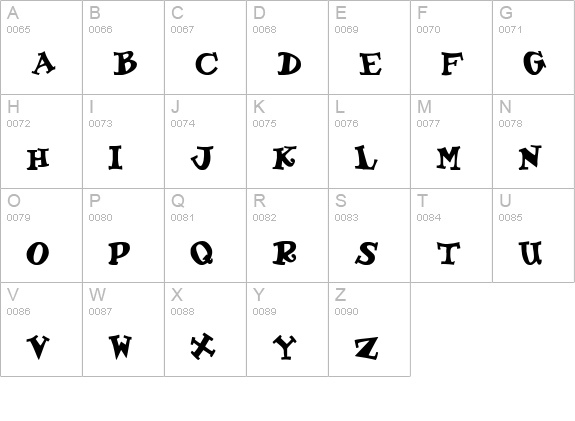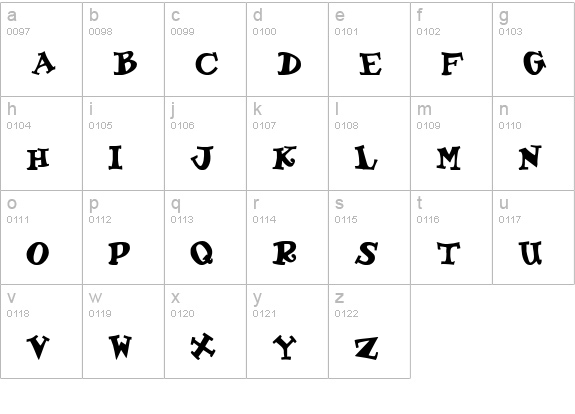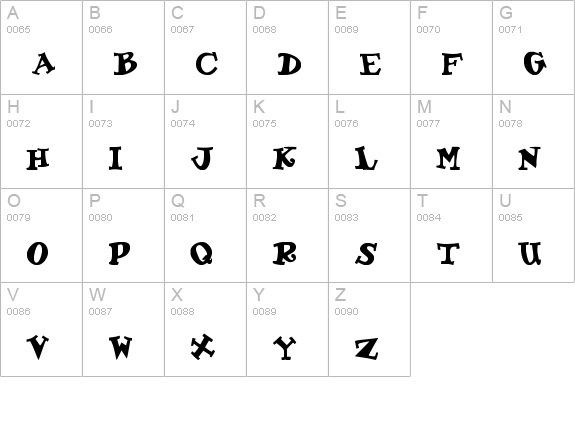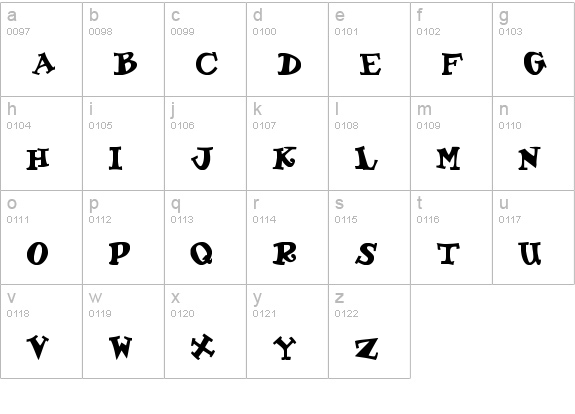
Gadzoox Bold Font Details
Gadzoox Bold is a strong, high-contrast variant in the Gadzoox typeface family \xE2\x80\x94 well suited to headlines, attention-grabbing titles, and strong calls-to-action.
Introducing Gadzoox Bold, a captivating and versatile font that effortlessly combines boldness with elegance. This remarkable typeface is designed to make a bold statement in any project, whether it's for branding, advertising, or creative ventures. Gadzoox Bold not only stands out with its commanding presence but also offers a sense of sophistication and creativity. Its strong and distinct letterforms exude confidence, making it the perfect choice for headlines, logos, and eye-catching designs that demand attention. What sets Gadzoox Bold apart is not only its striking aesthetics but also its accessibility. This exceptional font is freely available to download at FontsMarket.com, ensuring that designers and enthusiasts alike can easily incorporate it into their work without any barriers. With Gadzoox Bold, you have the power to create visually captivating designs that leave a lasting impression. Its versatility allows you to experiment with various styles and applications, from edgy and modern to classic and timeless. This font's carefully crafted letterforms ensure exceptional legibility at any size, making it suitable for both digital and print mediums. Whether you're designing a website, a magazine spread, or a poster, Gadzoox Bold will elevate your design to new heights. Unleash your creativity with Gadzoox Bold, a font that empowers you to express your ideas boldly and confidently. It's time to make a statement with your design, and Gadzoox Bold is here to help you achieve just that. Download it for free at FontsMarket.com and embark on a typographic journey that will captivate your audience and set your designs apart from the rest.